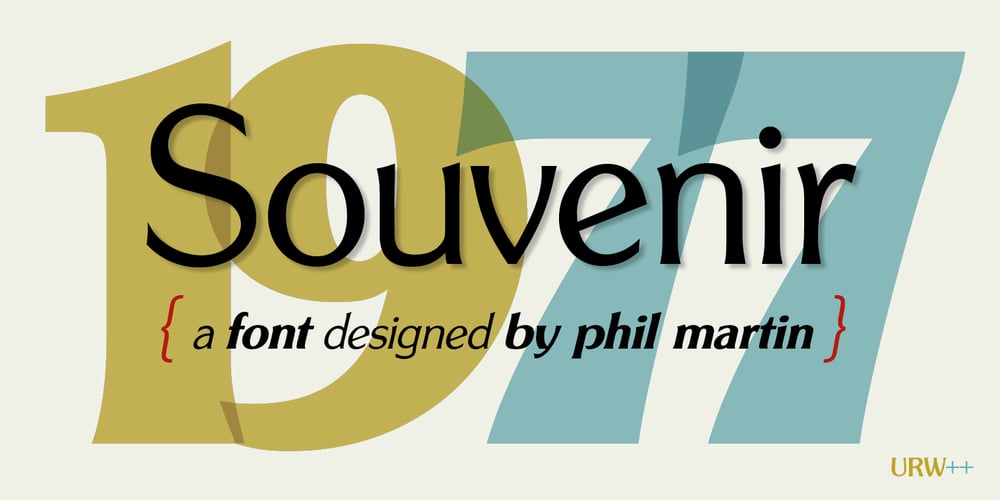
Souvenir Gothic
Souvenir Gothic font
Souvenir Gothic Font Family was designed by Phil Martin and published by URW Type Foundry. Souvenir Gothic contains 7 styles and family package options. George Brian designed the Souvenir Gothic font family. Souvenir Gothic is based on the original serif design of Souvenir. Strokes are flared to almost undetectable serifs.